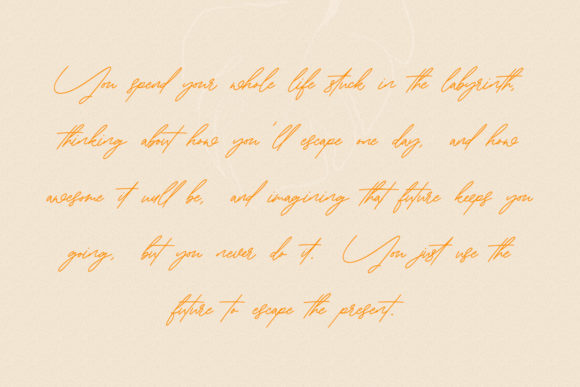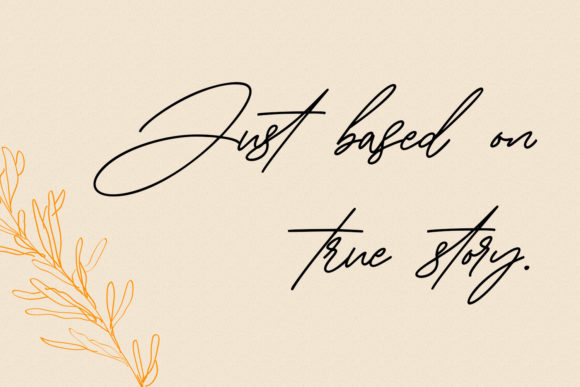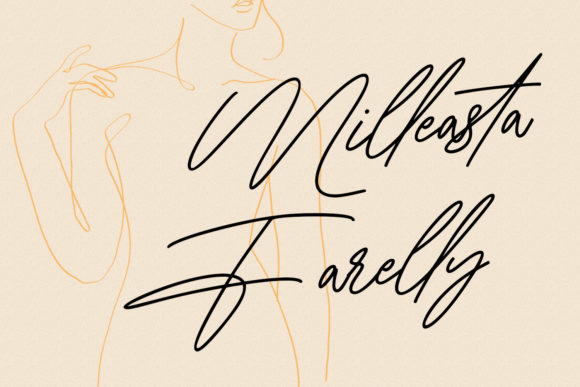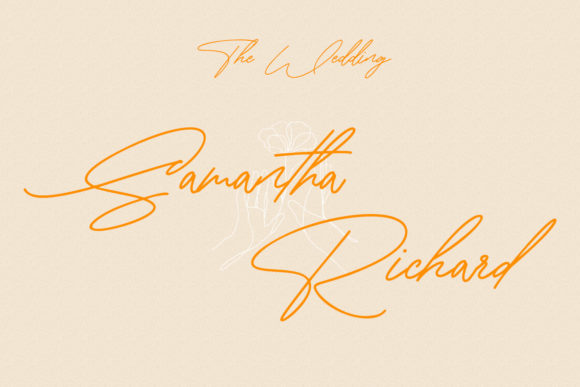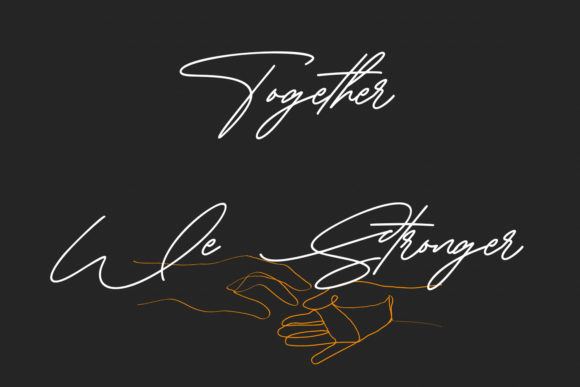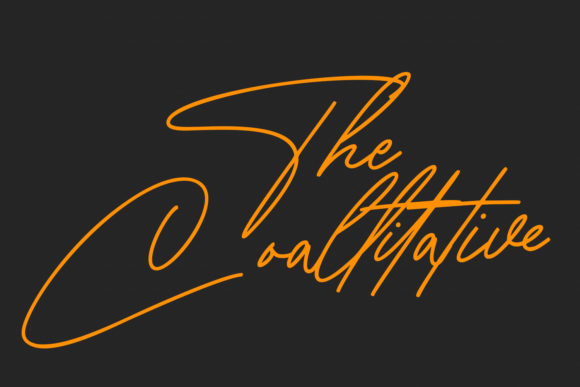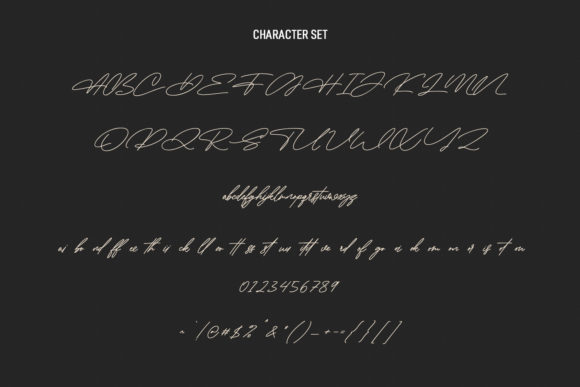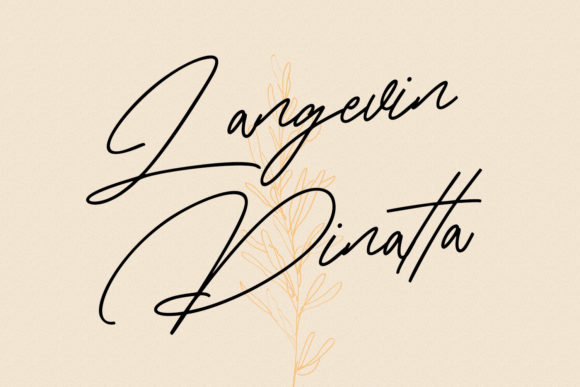
Hilority Font
About Hilority Font
Hilority is a relaxed and informal script font. It is the best choice for creating eye catching logos, branding and quotes. Every letter has a unique and beautiful touch, which will make your design come alive!